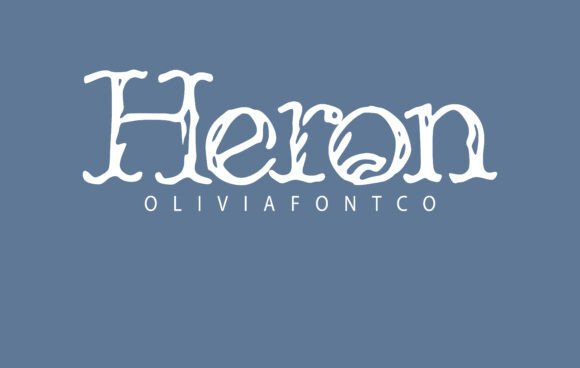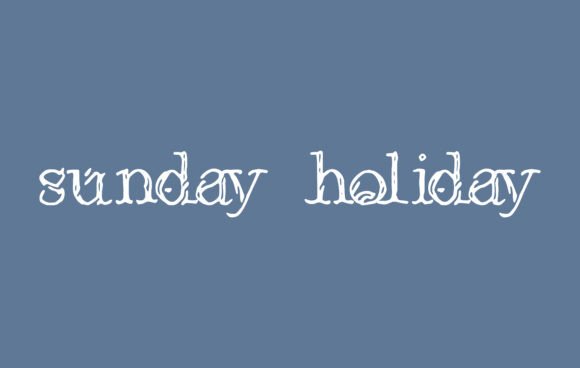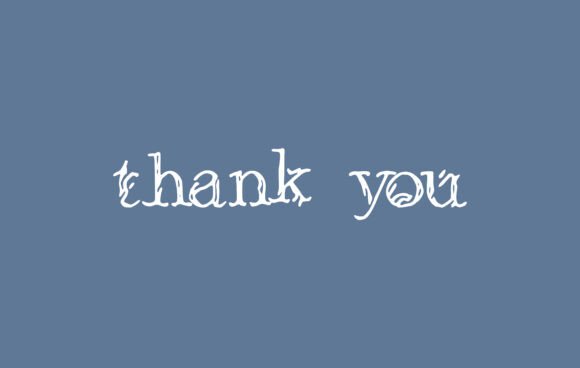
Heron Font: A Romantic Handwritten Font for Wedding & Social Media Design
About the Heron Font
Meet Heron Font, a stunning font that brings a touch of elegance and professionalism to any design. Heron font is an authentic handwritten font with a romantic touch. Expertly designed to be a true favorite, this font has the potential to take your creative ideas to the highest level
Heron’s romantic touch makes it ideal for projects requiring a personal, handcrafted feel. It excels in headlines, short text blocks on invitations or branding materials, and even short-form social media posts. However, its handwritten nature makes it less suitable for large bodies of text or UI elements where high legibility is paramount.
Its inherent elegance pairs well with clean sans-serif fonts like Montserrat or Open Sans for a balanced contrast. For a more luxurious feel, consider pairing it with a classic serif like Garamond or a delicate script like Great Vibes. Avoid pairing it with overly bold or geometric fonts, which might clash with its organic character.
Heron projects a sophisticated yet approachable personality, making it perfect for brands focused on romance, beauty, fashion, or artisanal goods. The font conveys warmth and authenticity without sacrificing a sense of refinement.